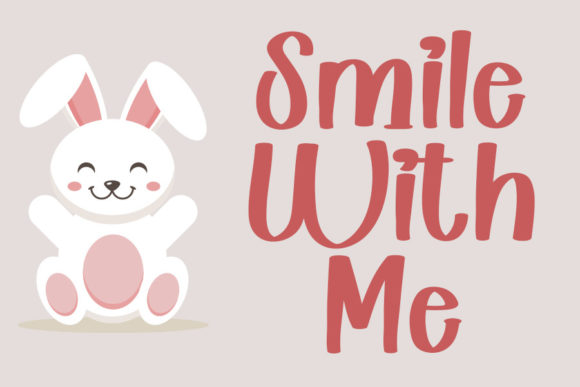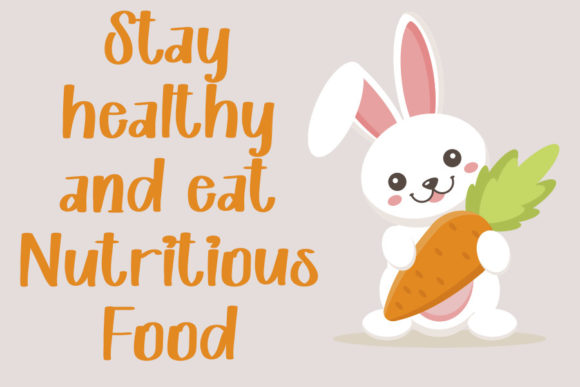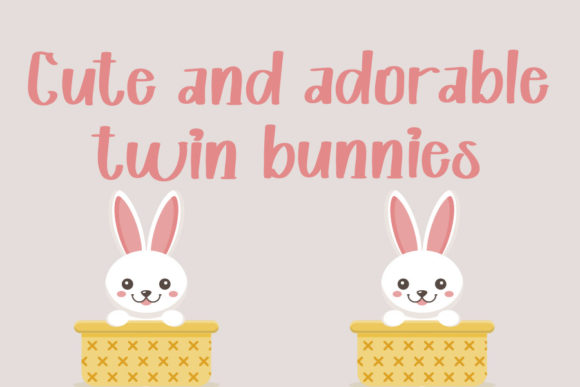
Introduction to Rabbit Tails Font
Rabbit Tails is a simple and cute display font.
Not too thin and not too thick, balanced and varied, this font was designed to enhance the beauty of your projects .
Key Features of Rabbit Tails Font
Why Choose Rabbit Tails Font?
Rabbit Tails Font offers exceptional quality and versatility, making it a valuable addition to your design toolkit. Whether you’re creating for personal projects or commercial use, Rabbit Tails Font delivers professional results.